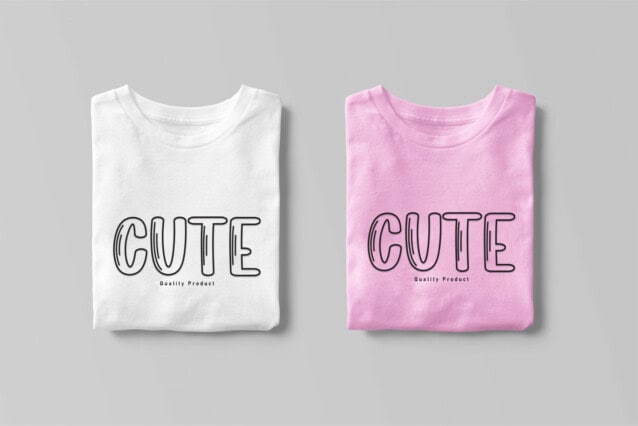
Kindergarten Display Font
Kindergarten Display Font is a sweet and friendly handwritten font. Its natural and unique style makes it incredibly fitting to a large pool of designs. The only limit is your imagination!